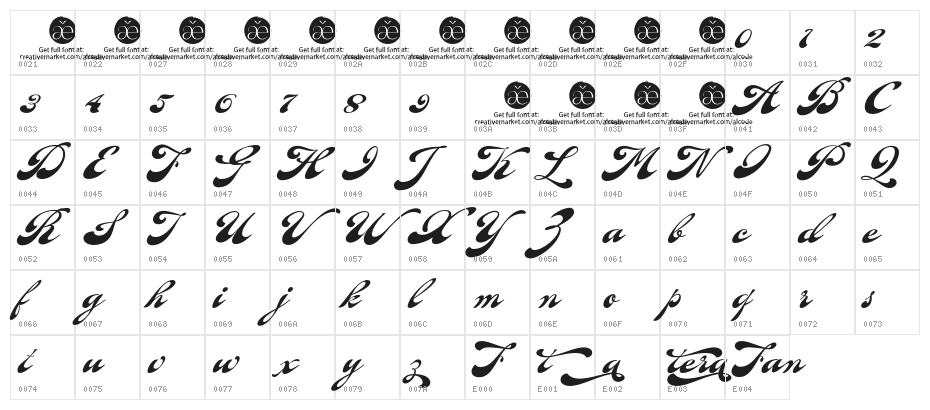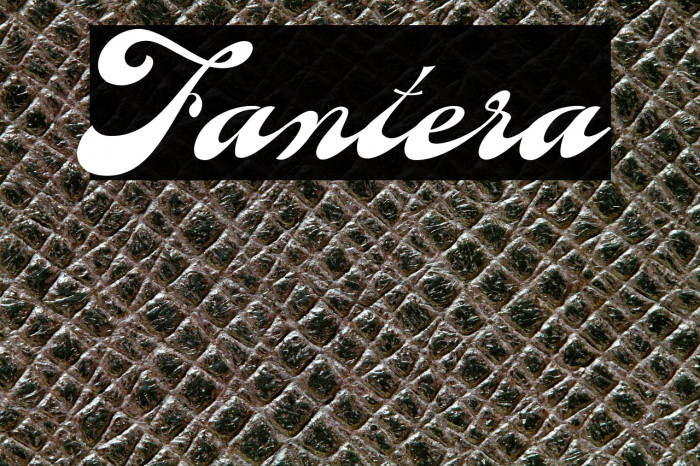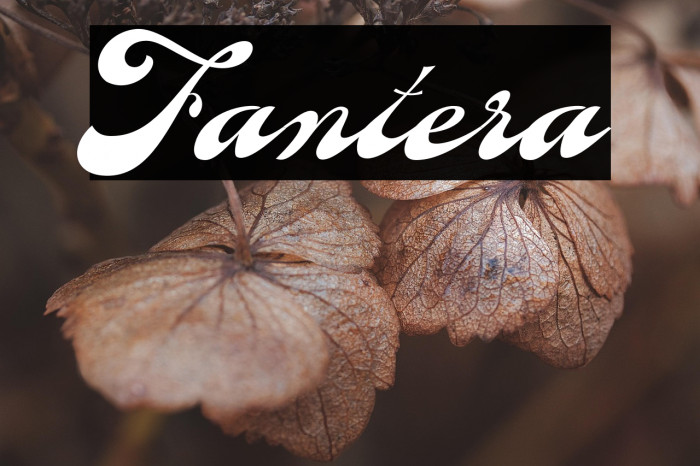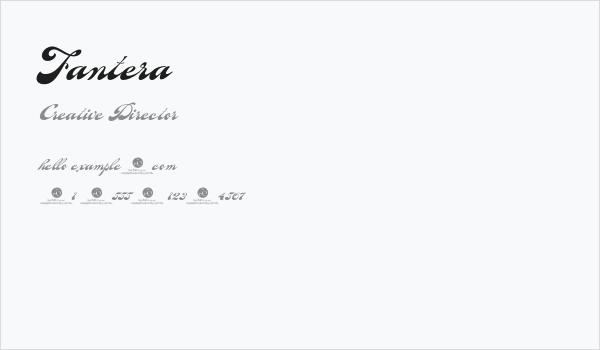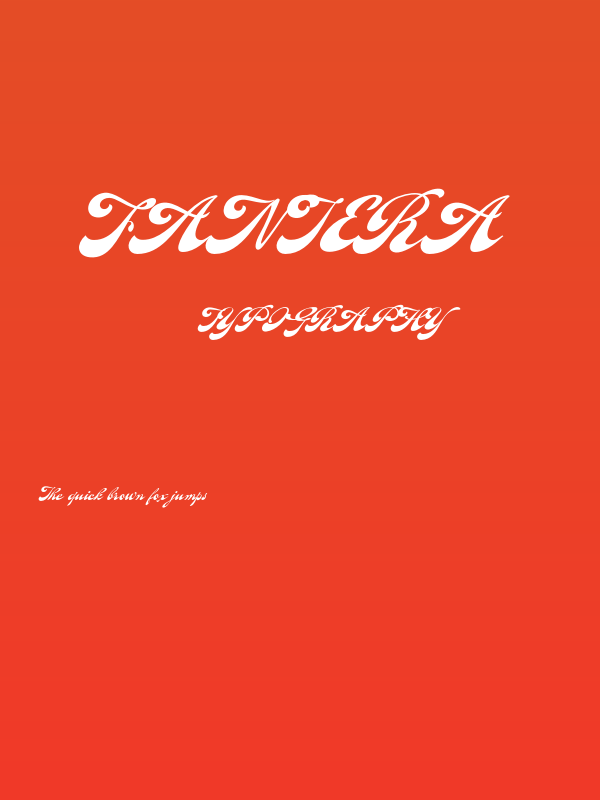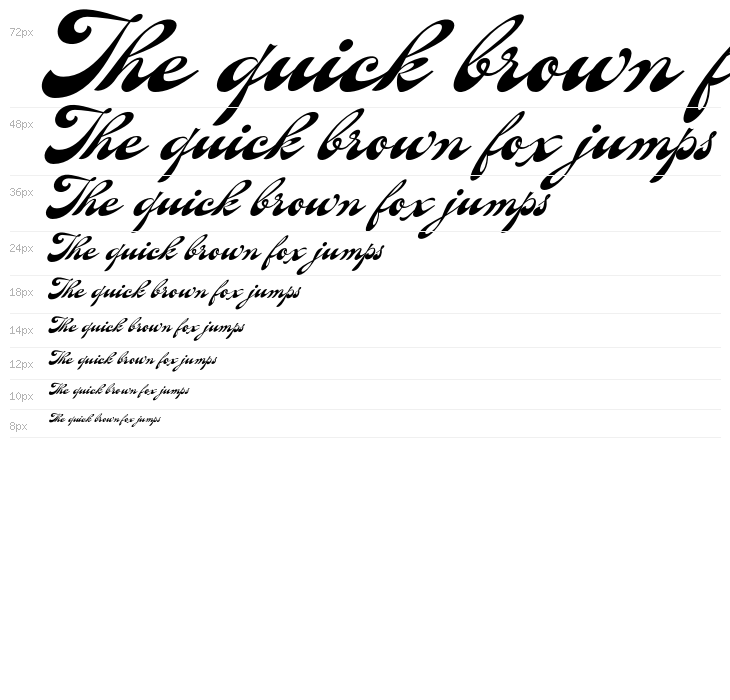
Fantera Font
Fantera Description
This elegant script font features fluid, cursive strokes that create a sense of movement and sophistication. The uppercase letters are bold and sweeping, with dramatic flourishes that add a touch of grandeur. The lowercase letters maintain a consistent flow, enhancing readability while preserving the decorative style. Numbers and special characters are designed with the same attention to detail, ensuring a cohesive look across all text elements. This font's high contrast between thick and thin strokes adds to its visual appeal, making it suitable for a variety of creative applications.
| Overall Style | Elegant |
| Use Case | Logos, Invitations, Headlines |
| Proposed Projects | Ideal for wedding invitations, luxury branding, and elegant signage. |